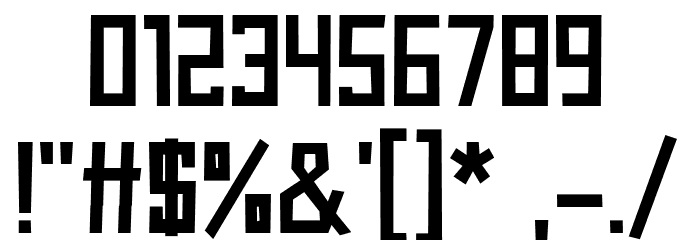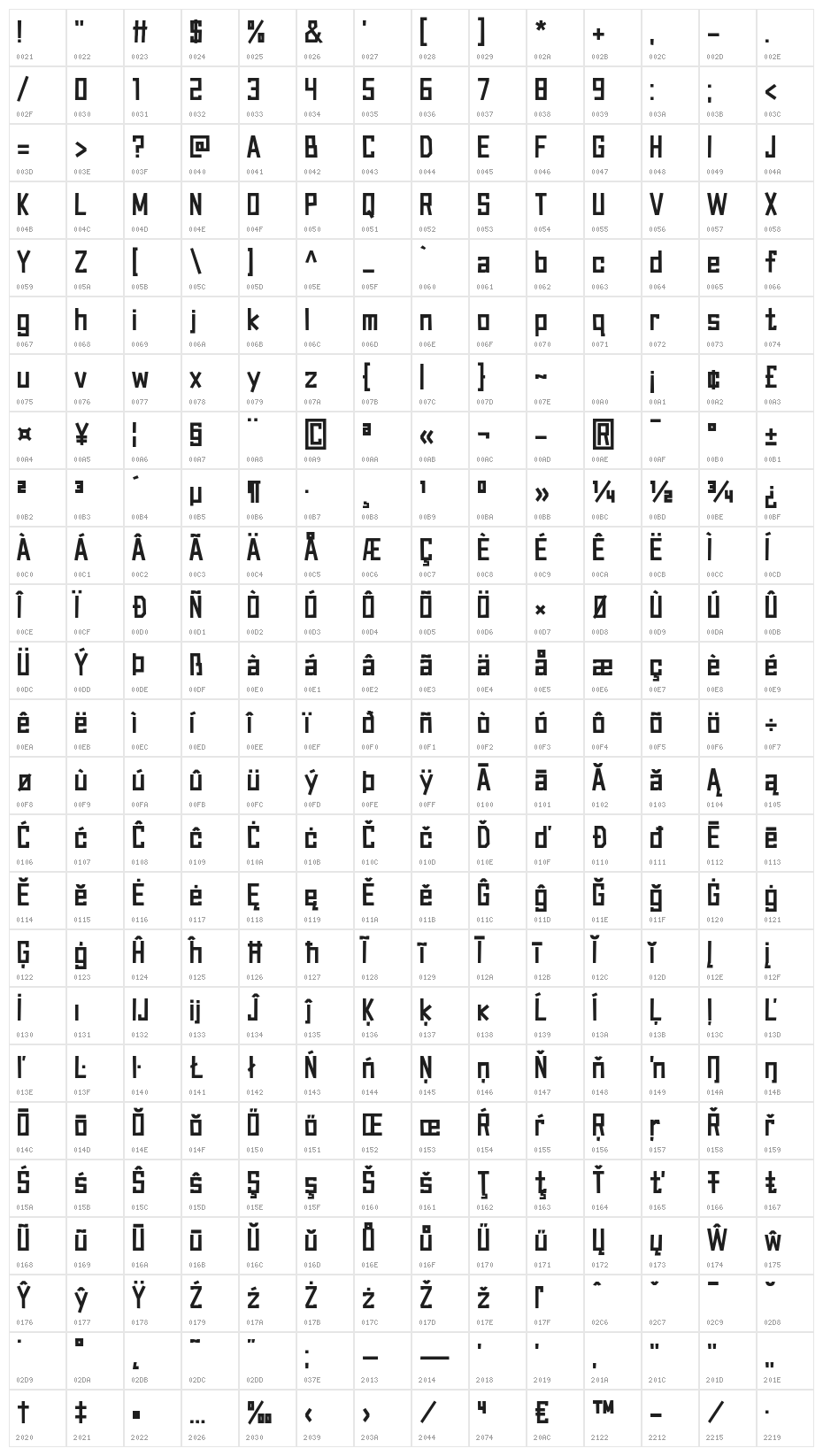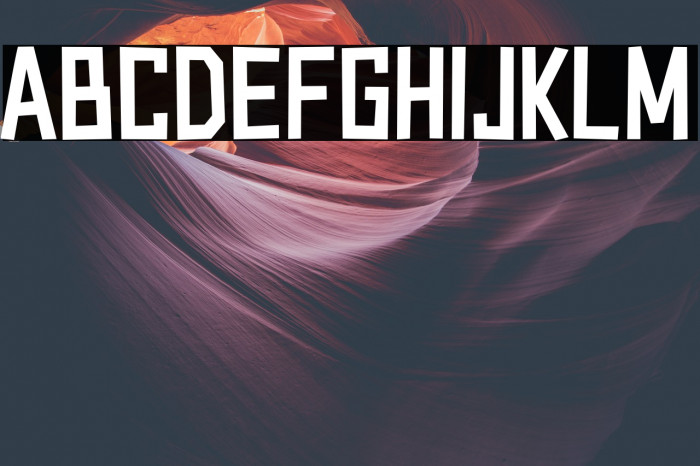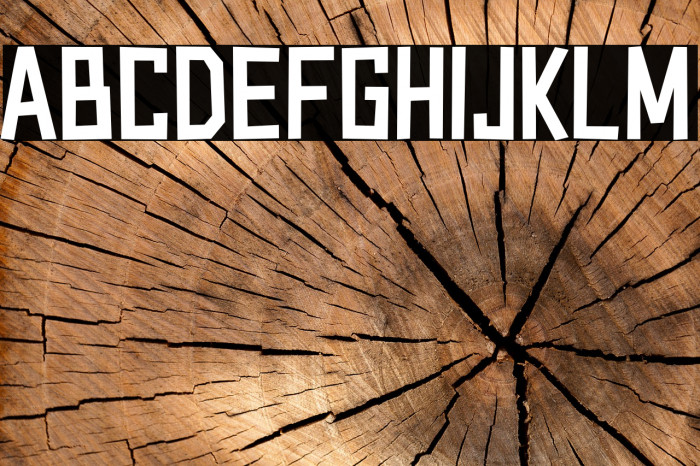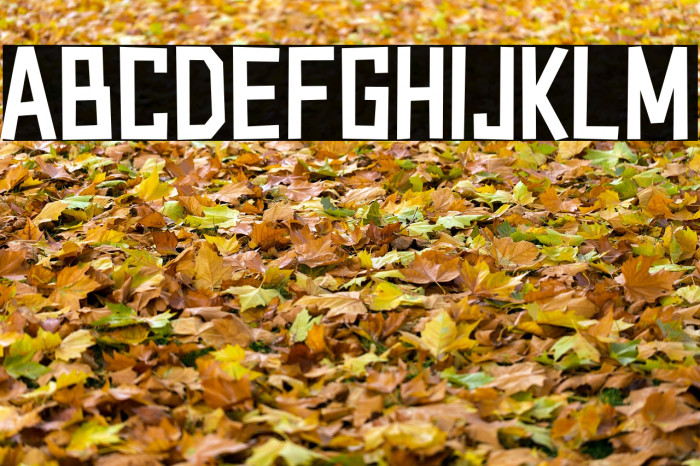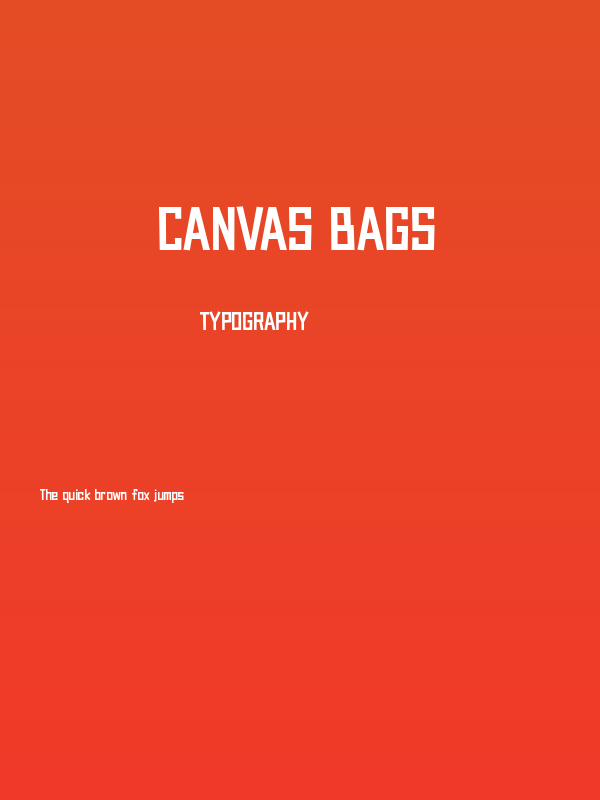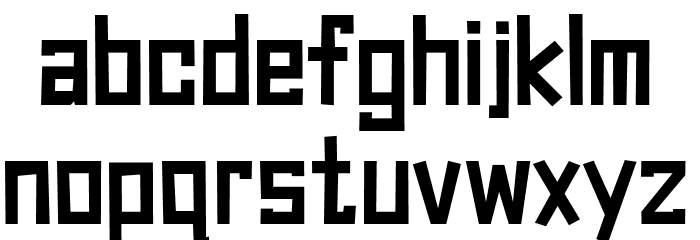
Canvas Bags Font
Canvas Bags Description
This font features a bold and geometric design with a strong, angular appearance. Each character is crafted with sharp edges and a uniform stroke width, giving it a modern and assertive look. The uppercase and lowercase letters maintain a consistent style, while the numerals and special characters complement the overall aesthetic. The font's structure is clean and straightforward, making it highly legible and suitable for various design applications. Its distinct style can add a contemporary and edgy feel to any project.
| Proposed Projects | Ideal for branding, posters, headlines, and any project requiring a strong visual impact. |